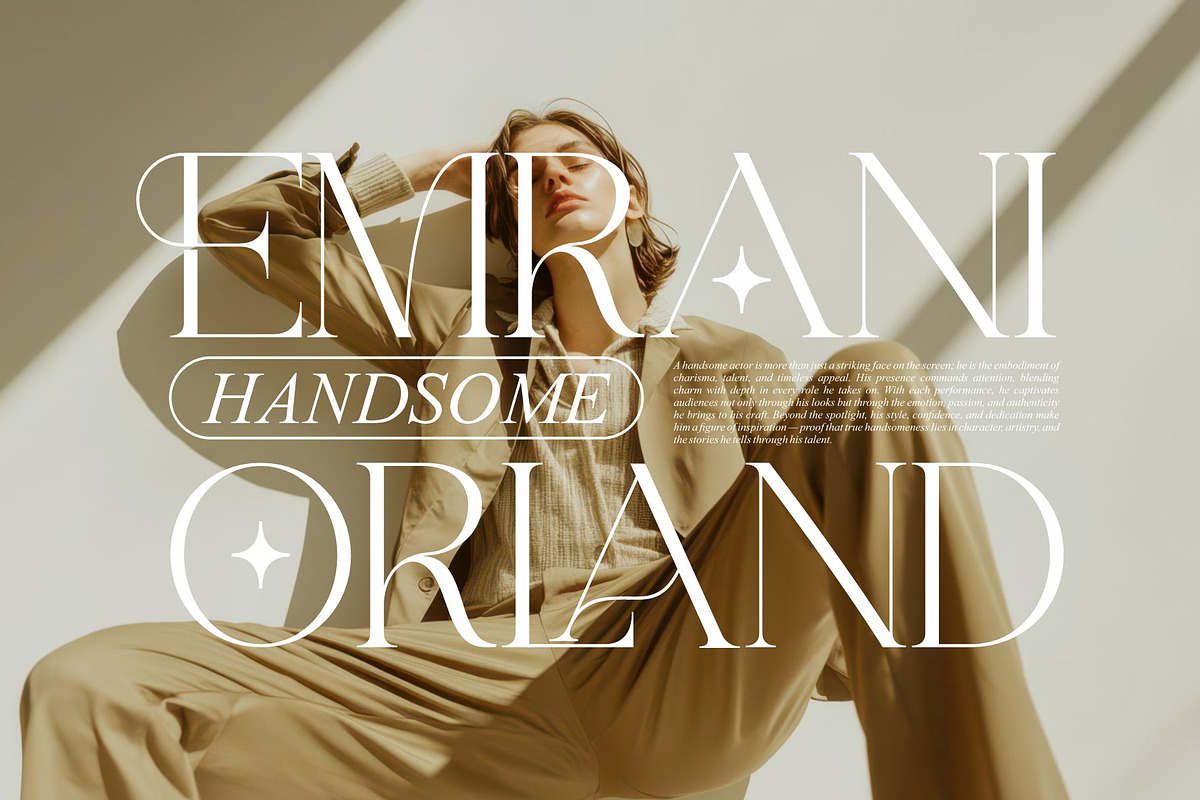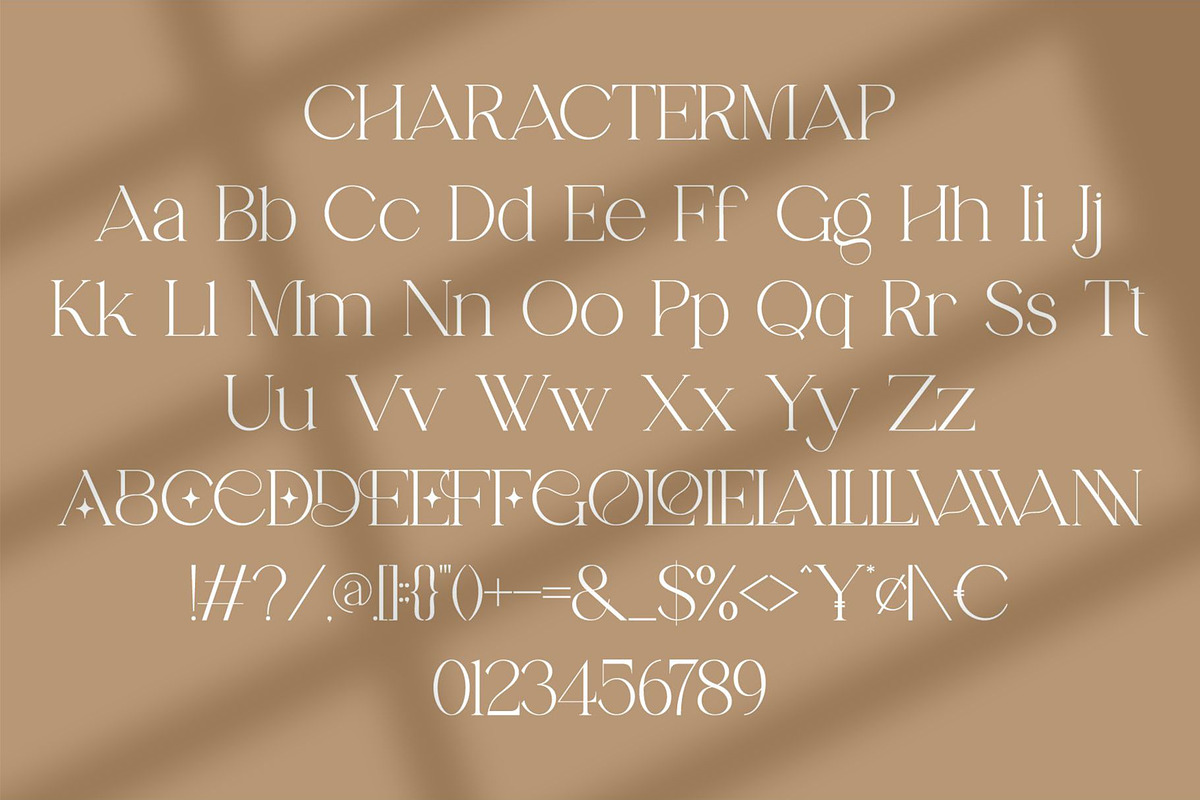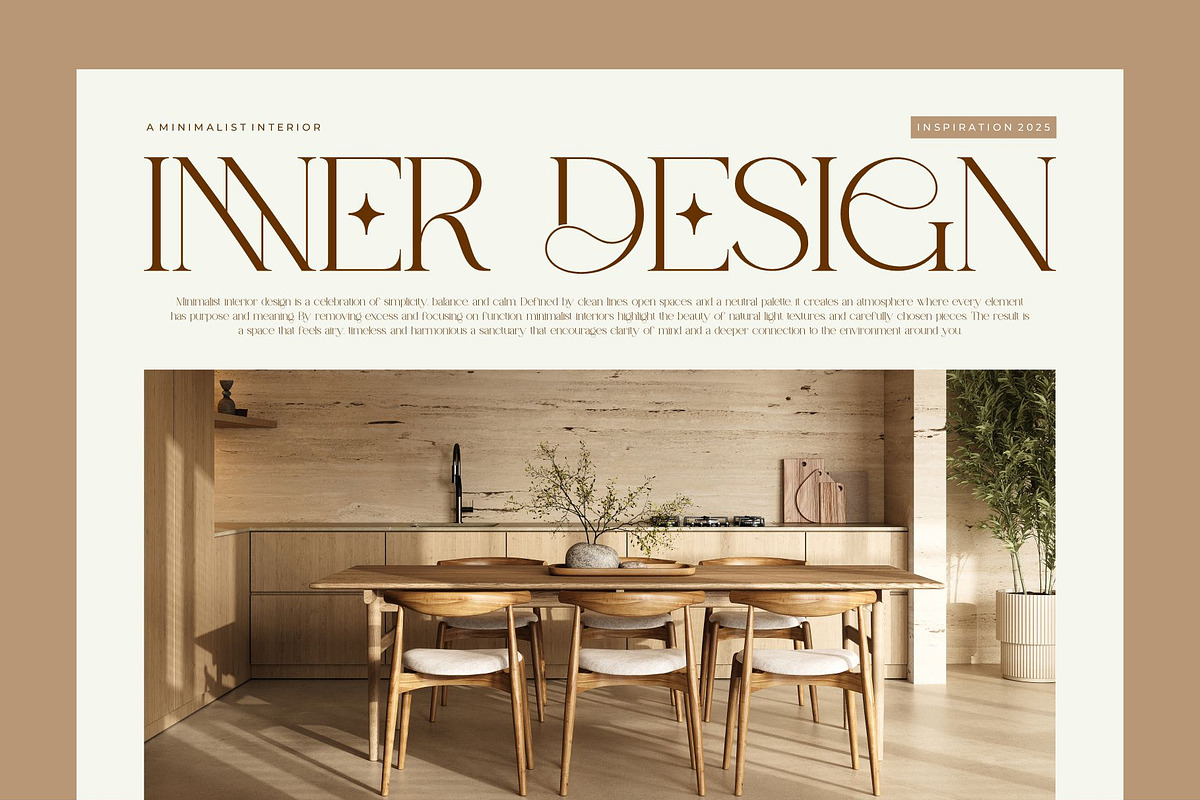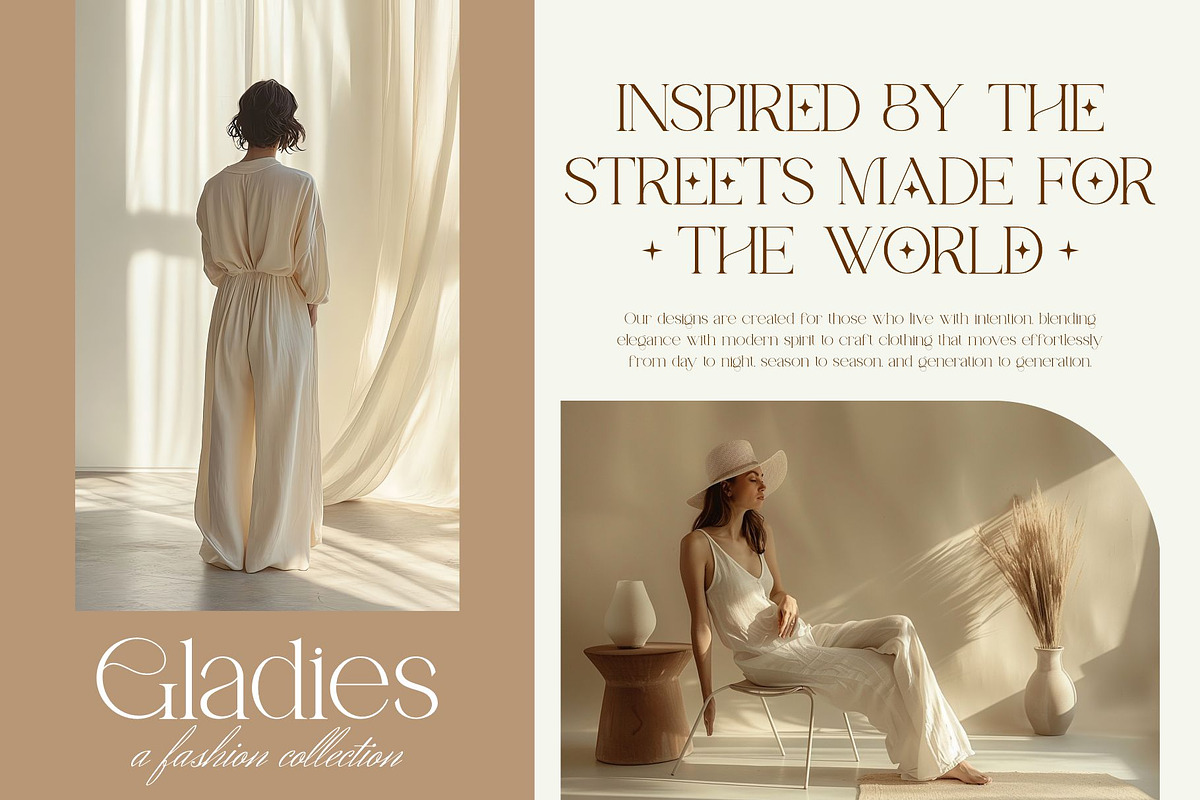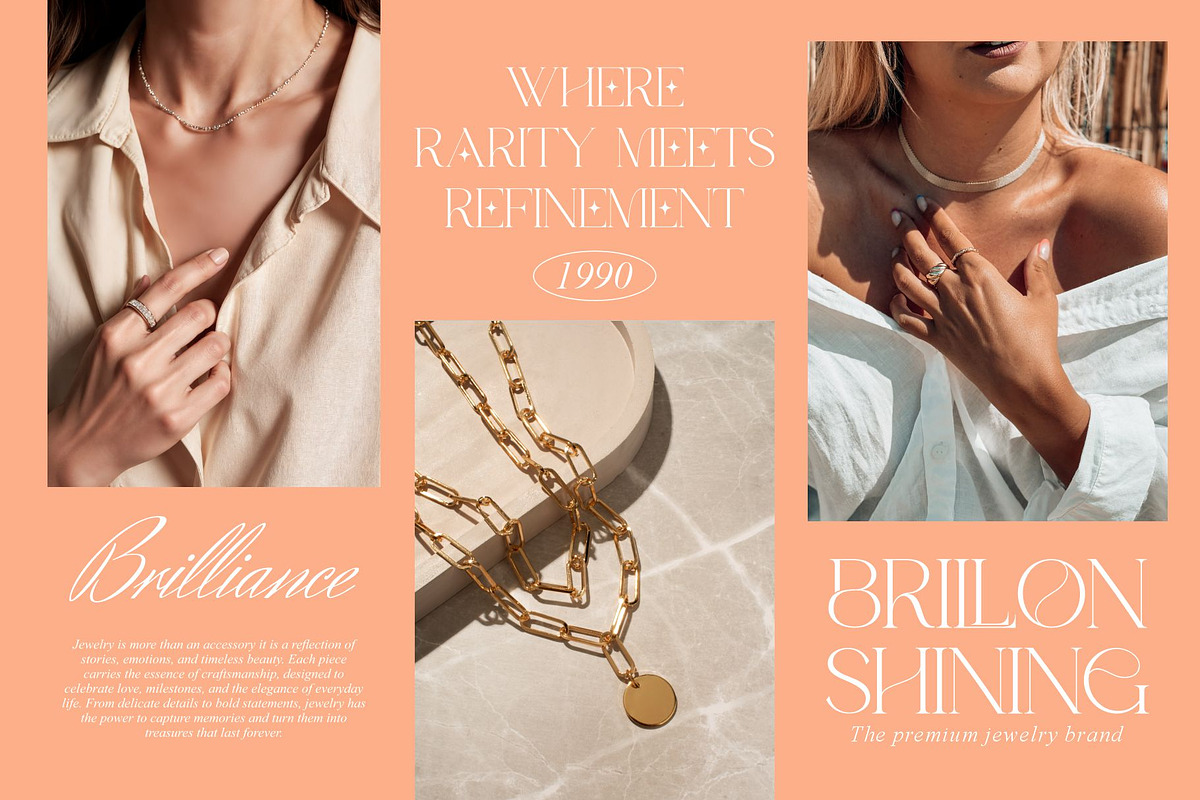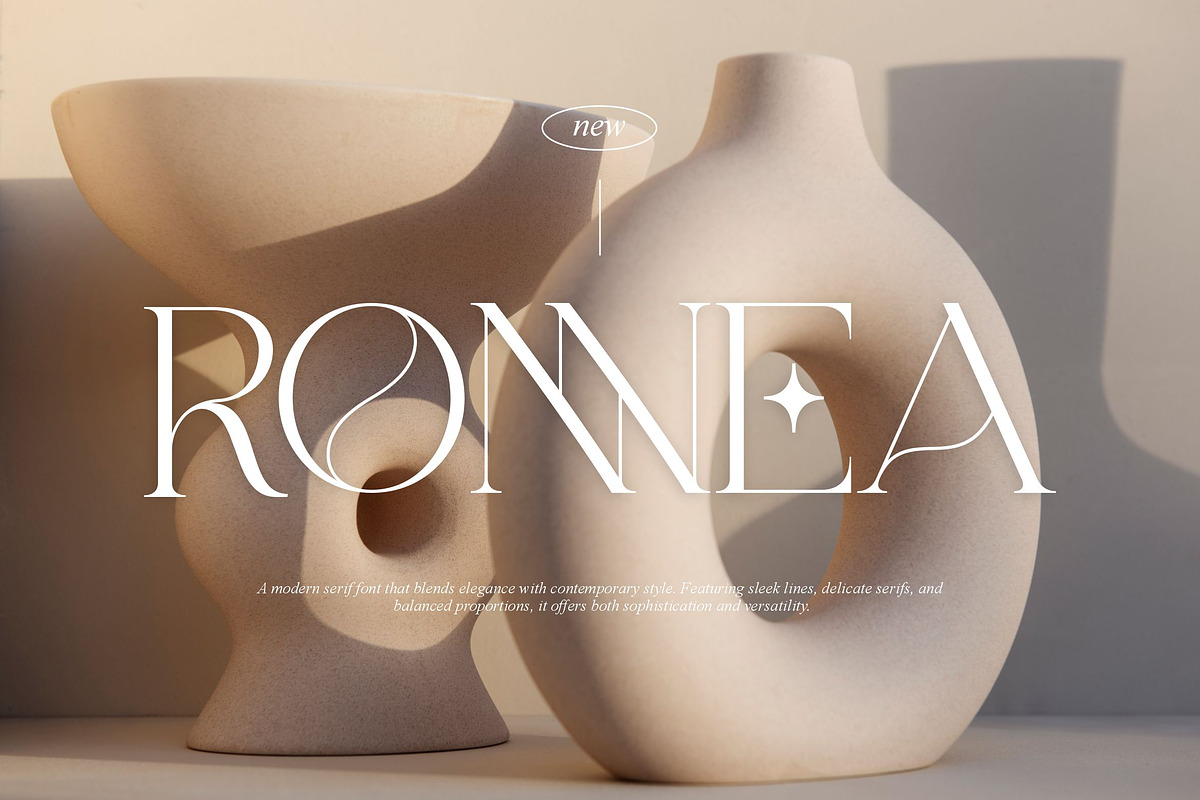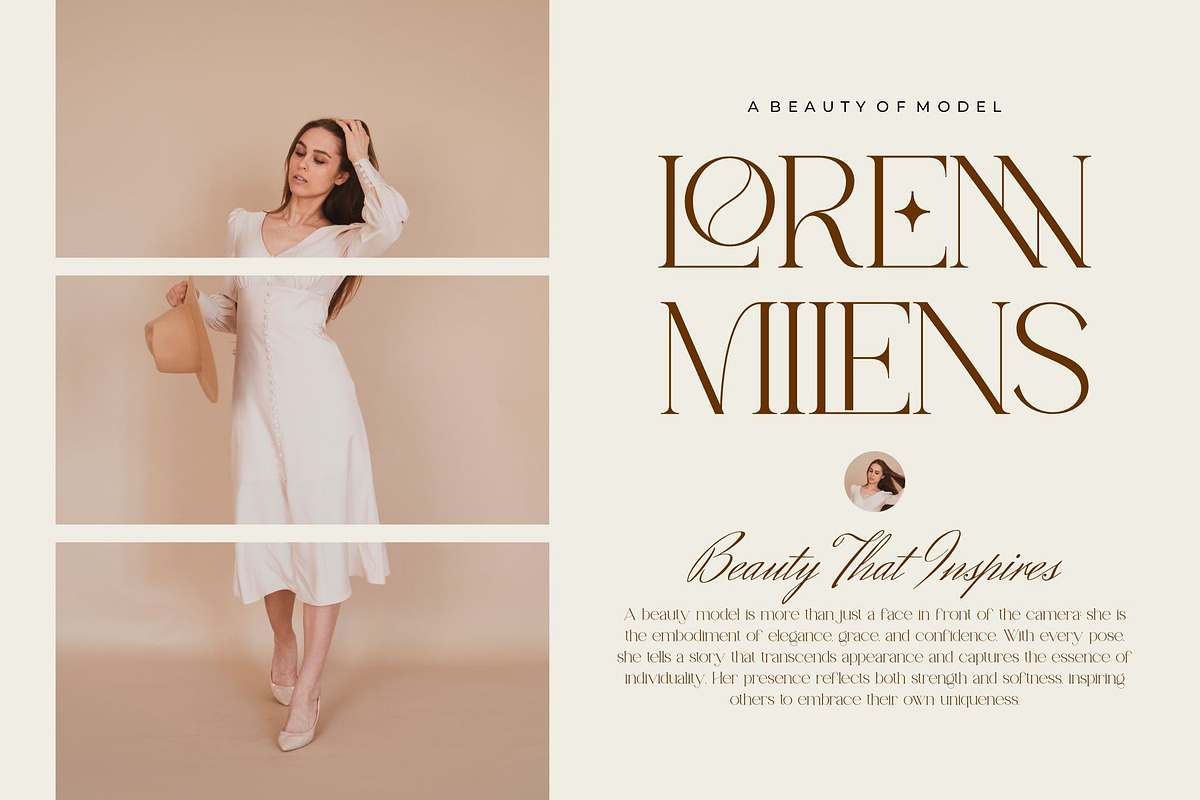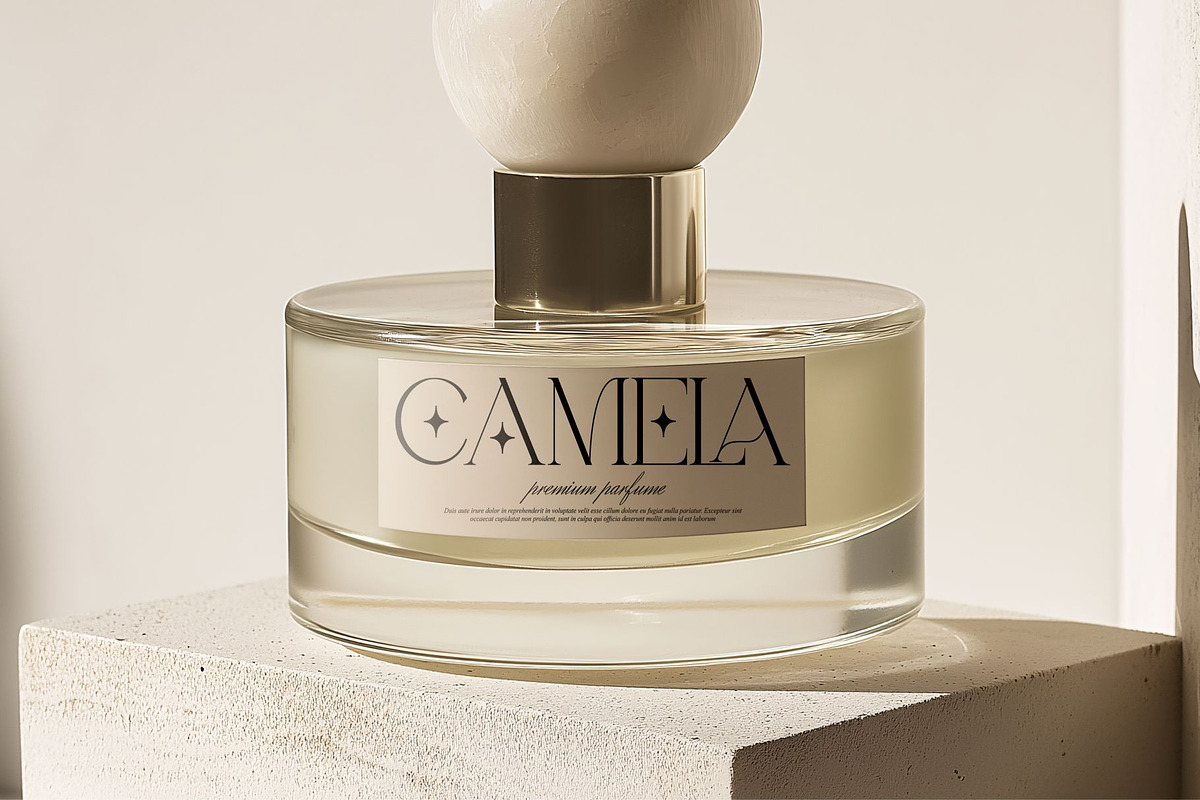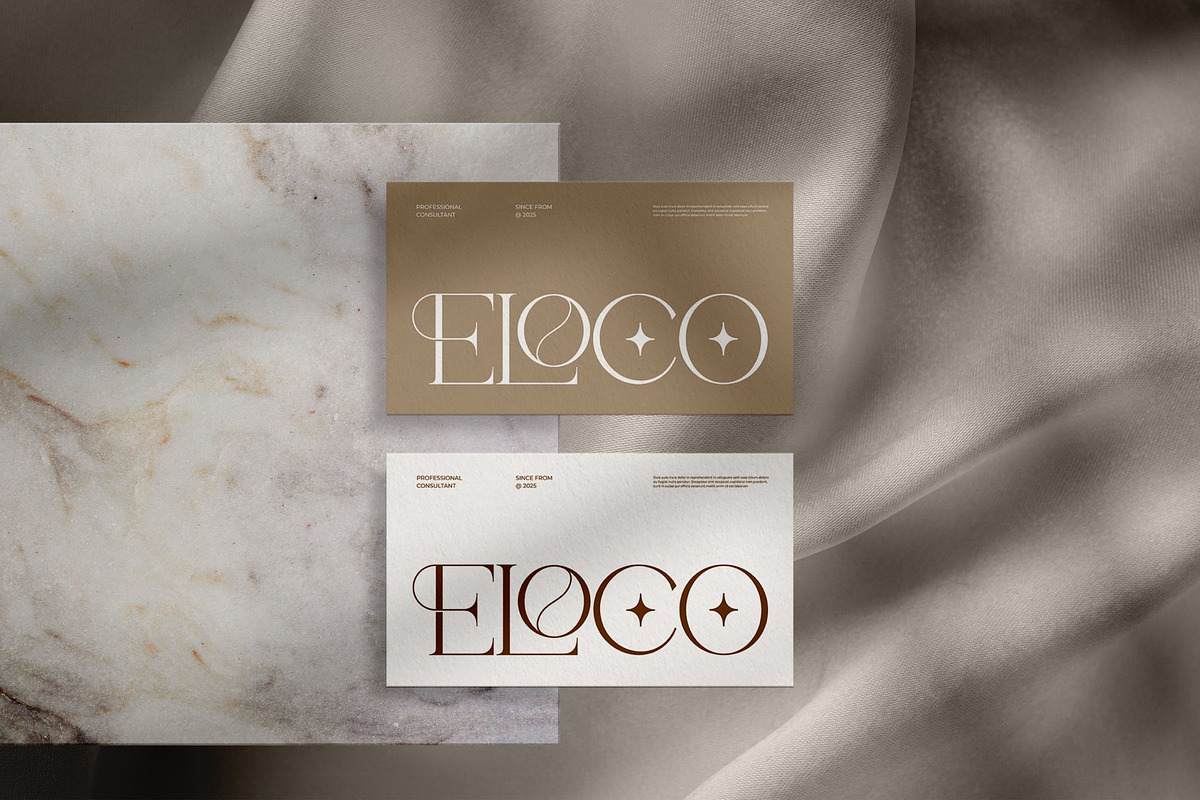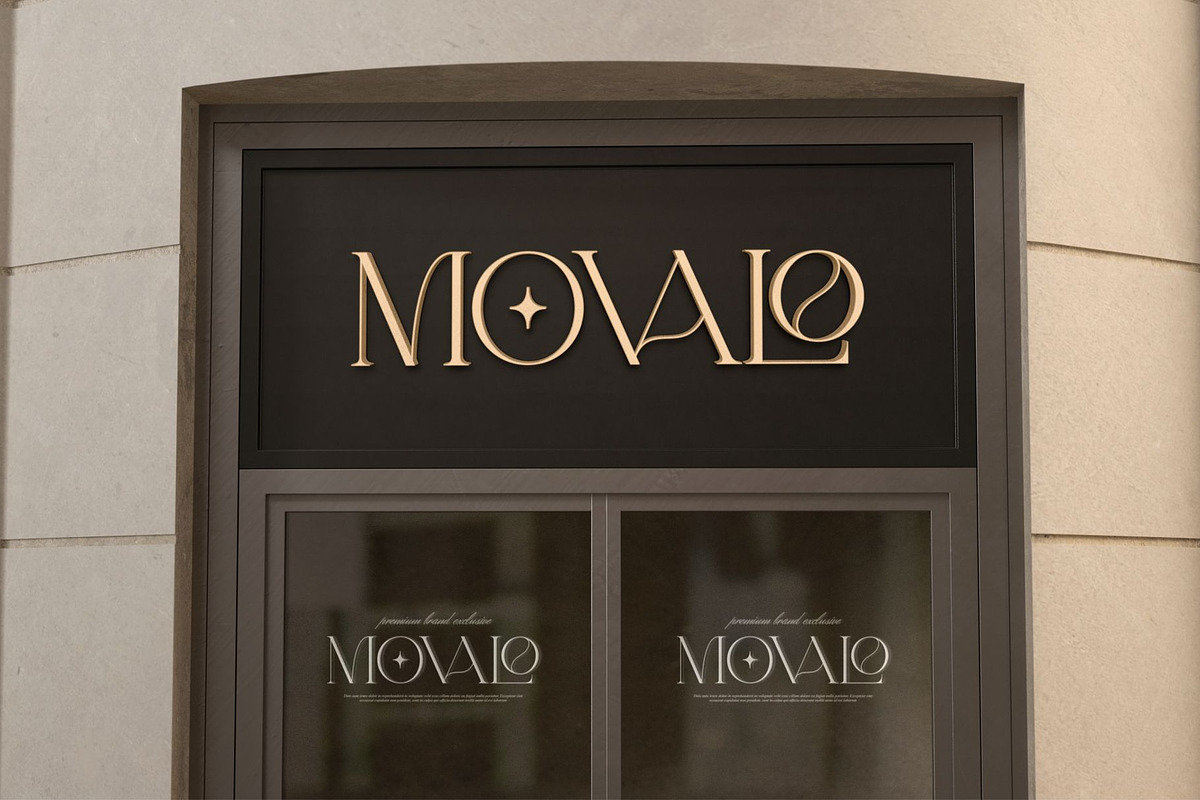
Ronnea || Modern Minimalist Serif
Ronnea Serif is a modern and minimalist font type for all branding and logo designs. This modern and minimalist Serif font has a beautiful character. This font is suitable for invitation card designs, cool logos, movie titles, movie names, business cards, book titles, brand names, and various other designs. Ronnea Serif is a smooth serif font that exudes sophistication and the moment. Its stylish ligatures make this font a perfect partner for any project.